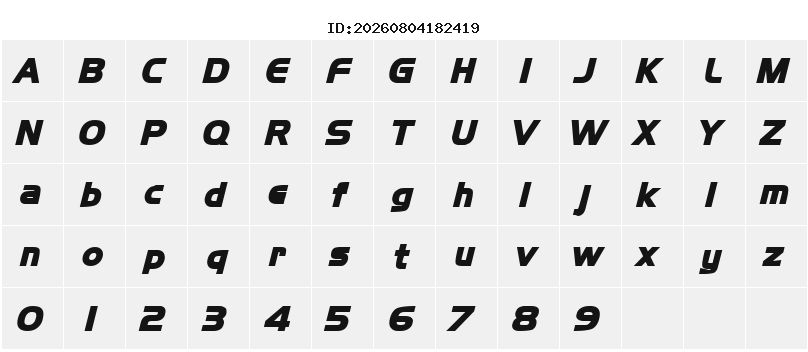
Newtown Preview
• Font Name: Newtown
• Font Style: BoldItalic
• Font ID: DTP-Newtown Bold Italic
• Full Font Name: Newtown Bold Italic
• PostScript Name: NewtownBoldItalic
About Newtown.ttf
Newtown.ttf is a modern, elegant sans-serif font designed for ultimate readability and visual harmony. Perfect for branding, headlines, web design, and print materials.